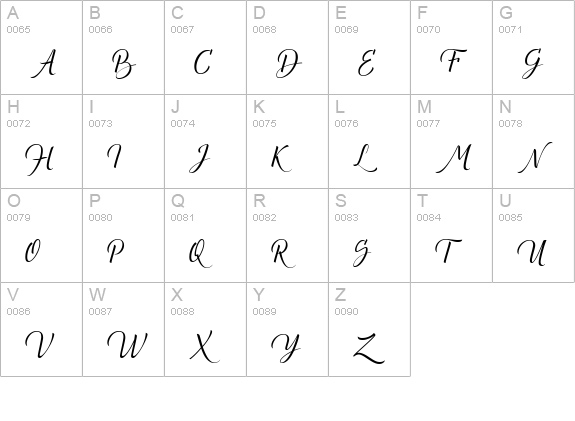
Canela Bark Personal Use Font Details
Introducing Canela Bark Personal Use font - a stunning typeface that exudes elegance and sophistication. With its delicate curves and stylish serifs, this font is perfect for adding a touch of class to any project. Whether you're designing a wedding invitation, creating a logo, or crafting a poster, Canela Bark Personal Use font is sure to make a lasting impression. Not only does this font possess a timeless charm, but it also offers the convenience of being free to use. That's right, Canela Bark Personal Use font is freely available to download at FontsMarket.com. Now, you can enjoy the beauty of this exquisite typeface without having to break the bank. Crafted with meticulous attention to detail, Canela Bark Personal Use font offers a wide range of characters, including uppercase and lowercase letters, numbers, punctuation marks, and special symbols. Its versatility allows you to express your creativity in various projects, from branding to editorial design. The smooth lines and graceful curves of Canela Bark Personal Use font create a harmonious flow that captivates the eye. Its legibility ensures that your message is easily conveyed, while the unique personality of the font adds a touch of individuality to your designs. Whether you're a professional designer or a casual enthusiast, Canela Bark Personal Use font is a must-have addition to your font library. Its timeless appeal and free availability make it an irresistible choice for all your creative endeavors. Download Canela Bark Personal Use font today at FontsMarket.com and unleash your creativity with this captivating and versatile typeface.